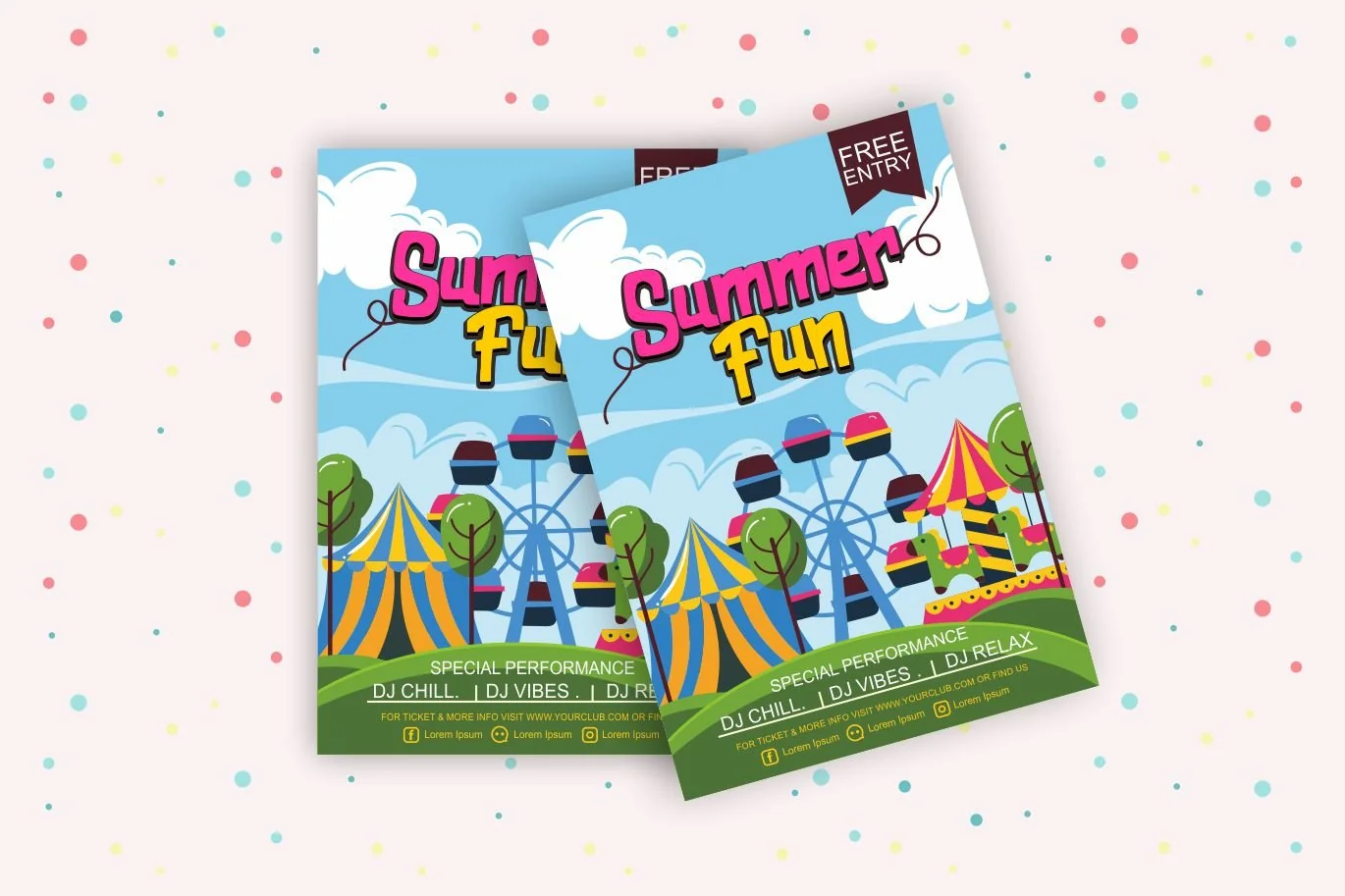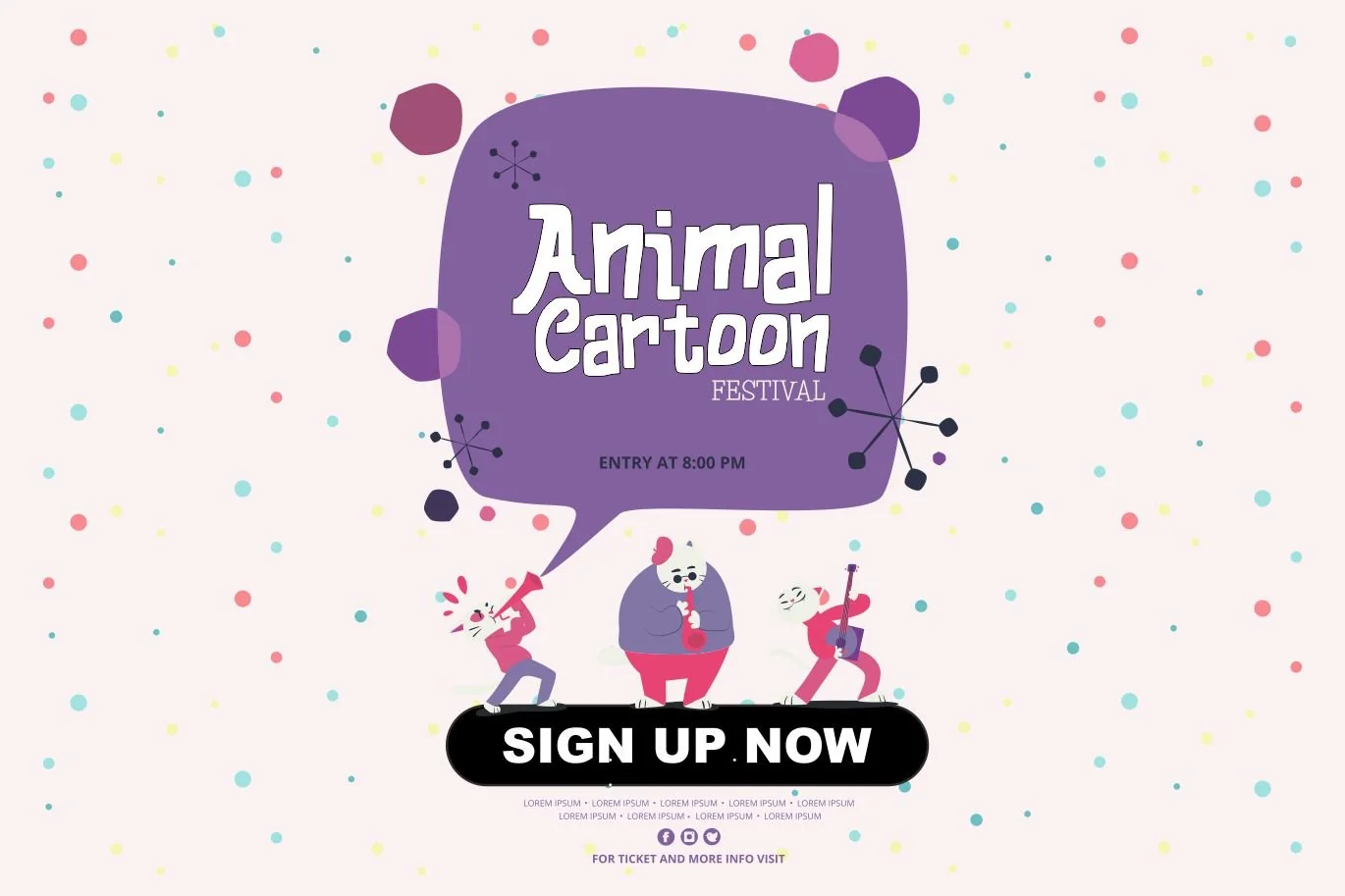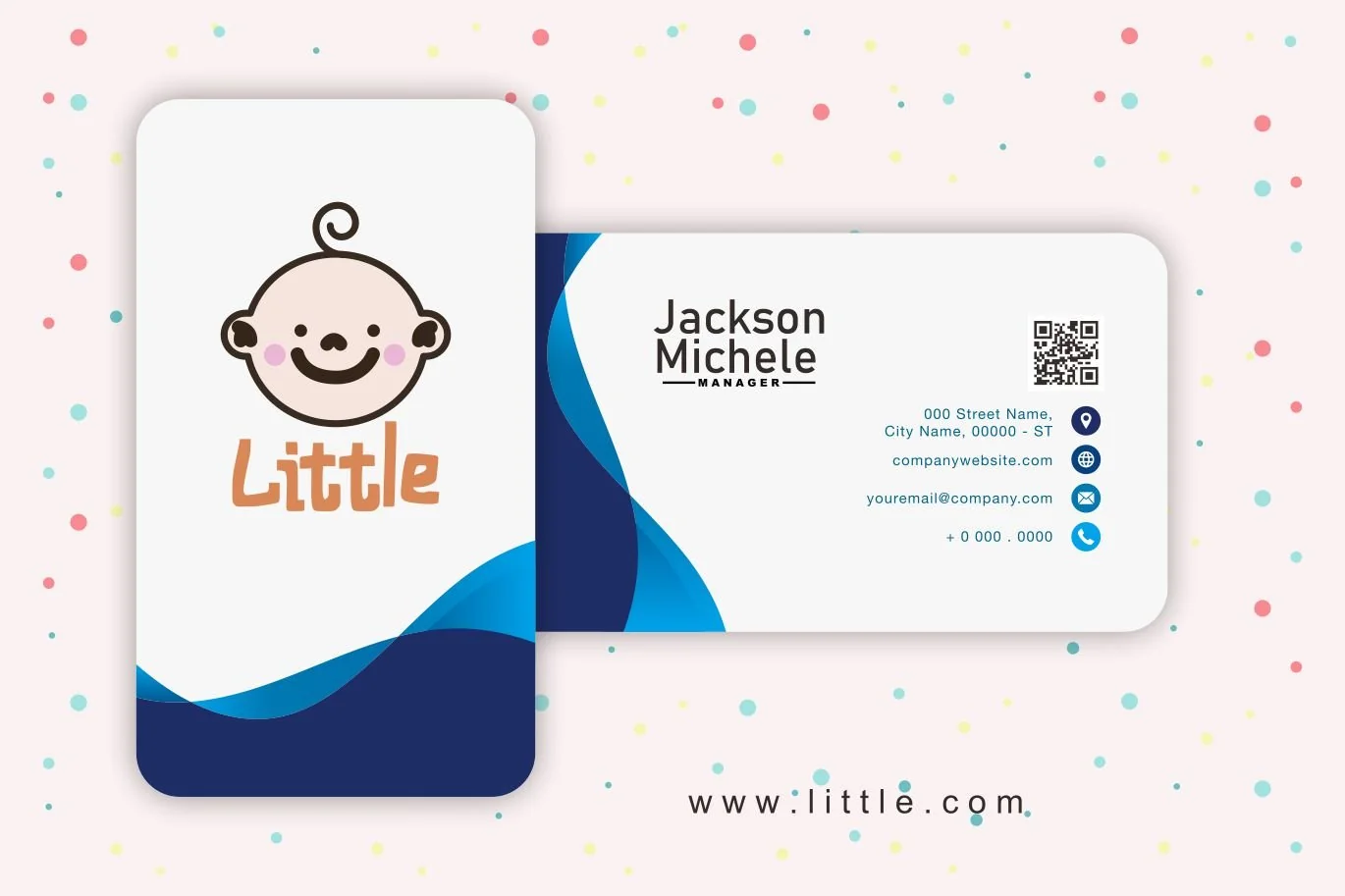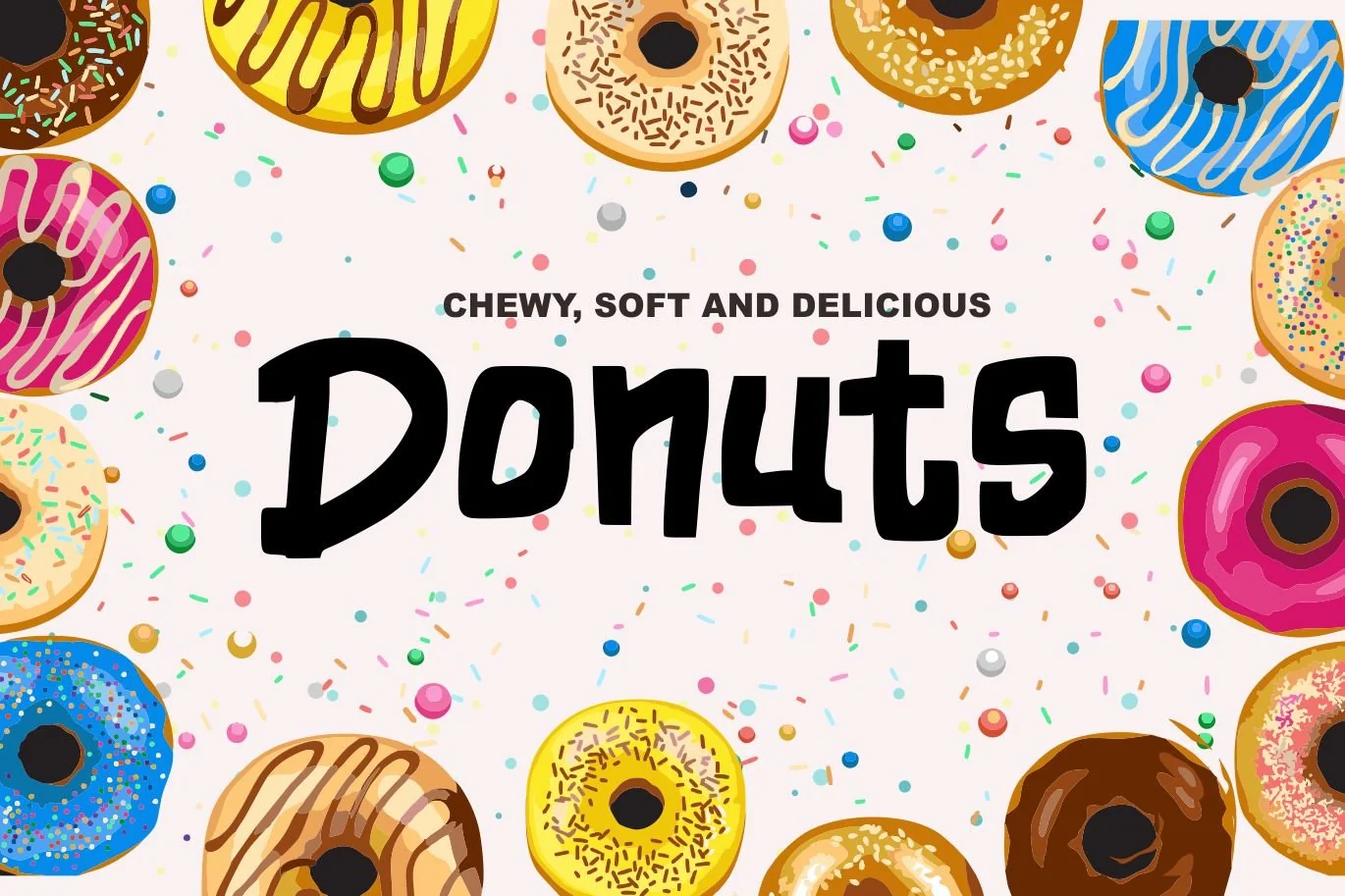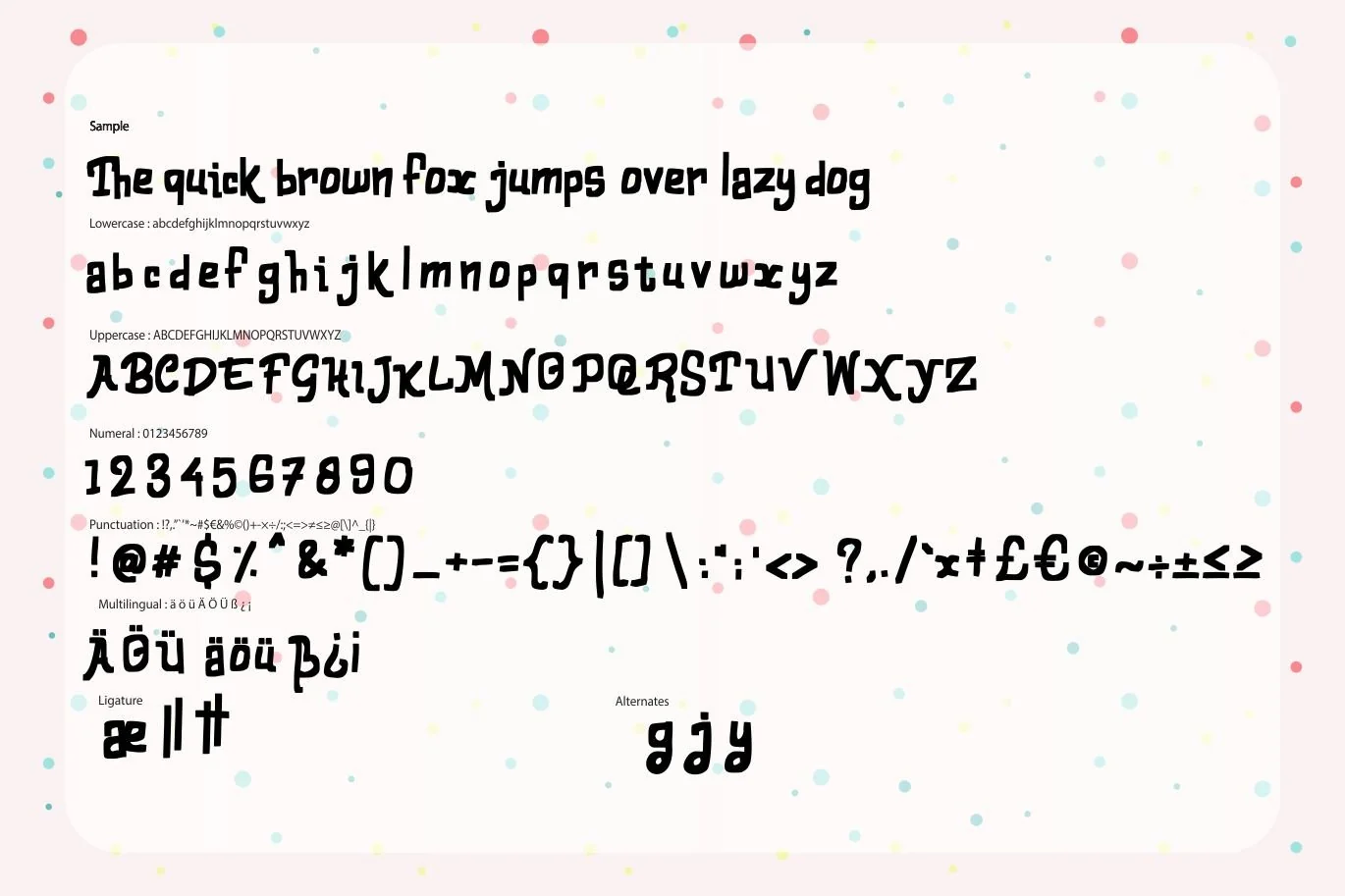
Adabra | Decorative Cartoon Font
Adabra | Decorative Cartoon Font with a kids style, So beautiful on invitation like greeting cards, branding materials, business cards, quotes, posters, and more!